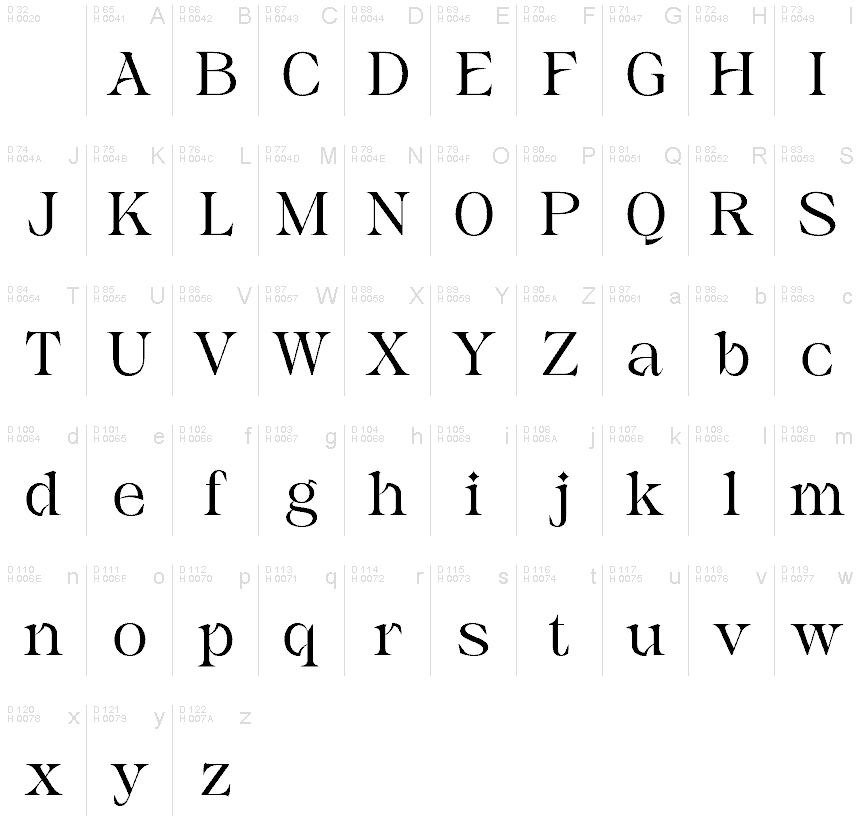
CS Crimson Demo Regular
CS Crimson font is a free serif font designed by Craft Supply Co. which embodies timeless elegance. With its classic influences, it offers a sophisticated and formal appeal suitable for numerous design projects. Its graceful design reflects careful attention to detail and balance, making it an ideal choice for those seeking a refined touch.
Perfectly fitting magazines, newspapers, novels, book covers, headlines, movie titles, product labels, posters and flyers alike; CS Crimson offers plenty of versatility. Integrate it into your branding or corporate identity projects which include business cards and other stationery work such as letterhead designs.